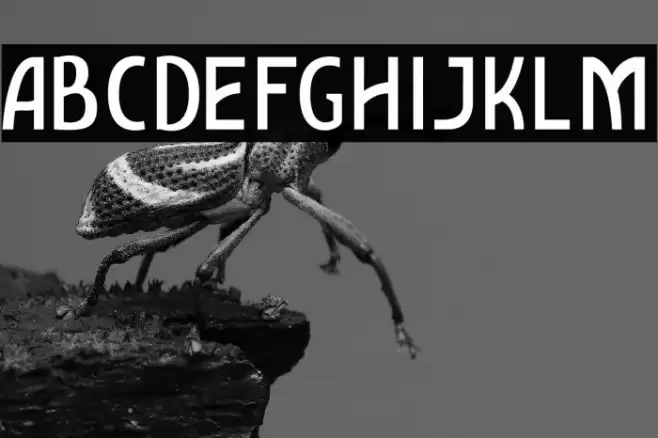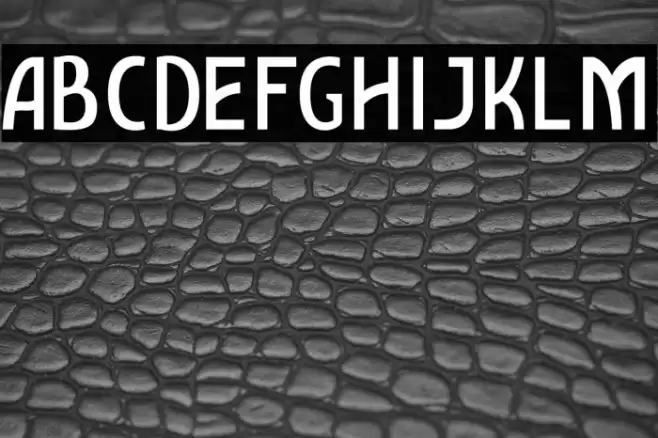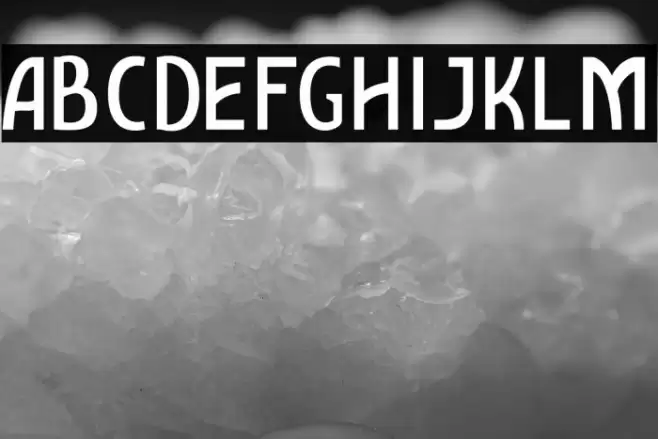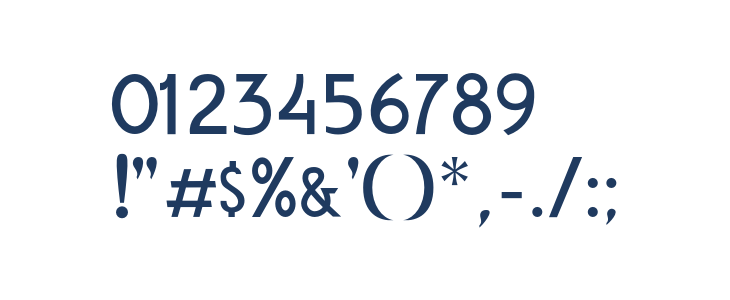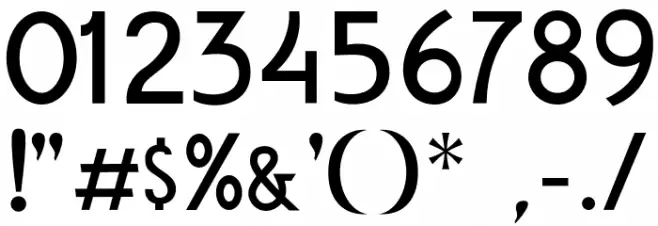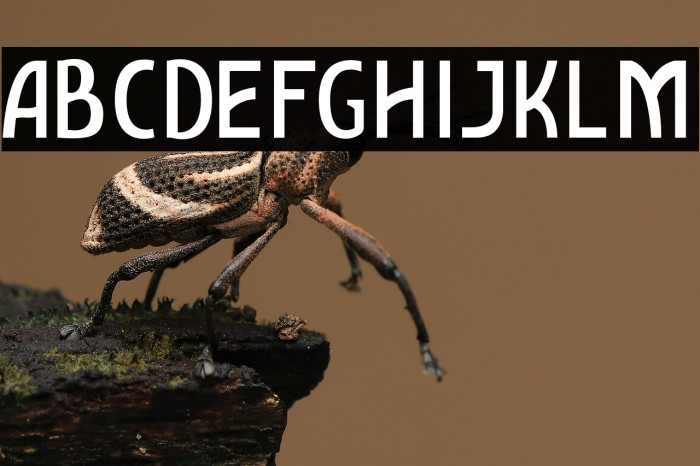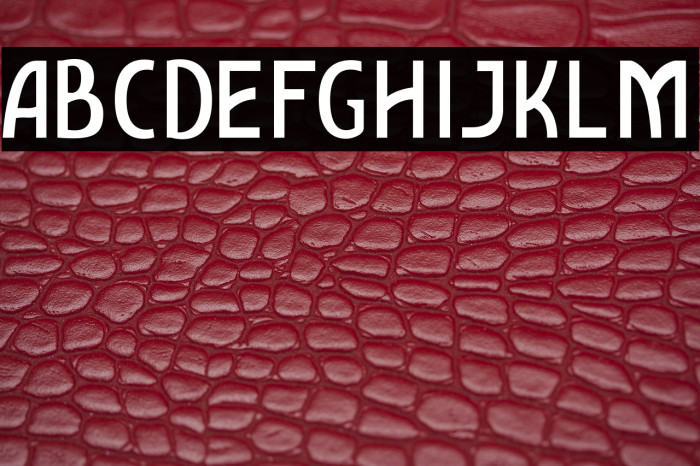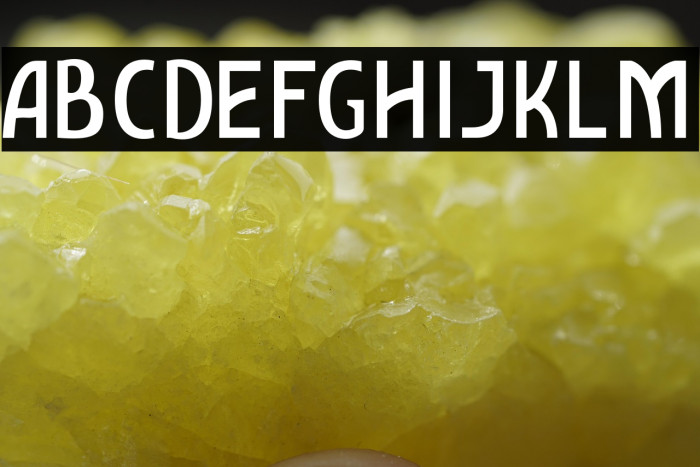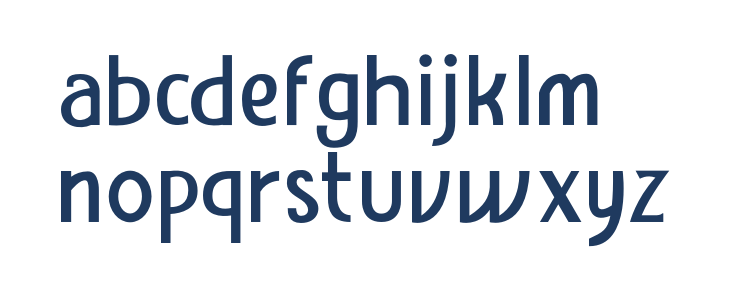
AmroSans Font
AmroSans Description
This font features a modern sans-serif style with clean, geometric lines and a slightly condensed appearance. The characters have a uniform stroke width, providing a balanced and harmonious look. The uppercase letters are tall and narrow, while the lowercase letters maintain a consistent height, enhancing readability. The numerals are proportional, matching the overall style of the alphabet. Special characters are distinct and well-integrated into the design, making this font versatile for various applications.
A modern, geometric sans-serif font with a clean and balanced design from Uncategorized fonts.
- Font: AmroSans
- Proposed Projects: Ideal for branding, advertising, web design, and editorial use, where a modern and clean aesthetic is desired.